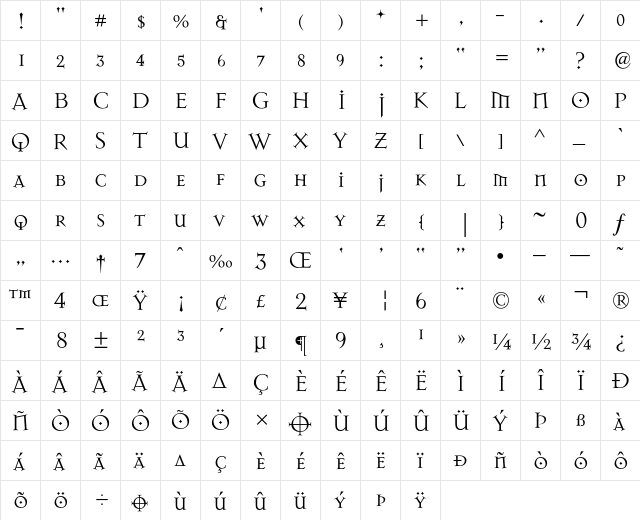
MasonAlternate Regular
Design Context for MasonAlternate Typeface
MasonAlternate is a composed and adaptable typeface that performs quietly and consistently across a wide range of design contexts.
Pro Tip: Use MasonAlternate in both headline and body roles to test its range before committing to a single application.